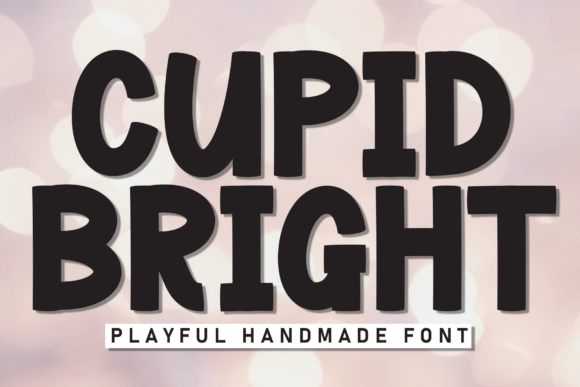
Cupid Bright Font: The Perfect Addition to Your Design Universe
Are you looking for a font that can add a spark of fun and playfulness to your creative projects? Look no further than Cupid Bright Font! This delightful handwritten display font is designed to radiate sweetness and friendliness with every stroke, making it the perfect choice for a variety of design applications.
What is Cupid Bright Font?
Cupid Bright Font is a beautiful, handwritten display font that is sure to capture the hearts of designers and audiences alike. Its endearing style and charming aesthetic make it an excellent choice for crafting wedding invitations, cards, and other design projects that require a touch of warmth and joy.
With its unique blend of playfulness and sophistication, Cupid Bright Font is perfect for designers who want to add a personal touch to their work. Whether you’re creating a wedding invitation, a greeting card, or a social media post, this font is sure to make your design stand out from the crowd.
Key Features of Cupid Bright Font
• Handwritten display font: Cupid Bright Font is a handwritten display font that is designed to add a personal touch to your designs.
• Sweet and friendly aesthetic: This font radiates sweetness and friendliness with every stroke, making it perfect for designs that require a touch of warmth and joy.
• Playful and sophisticated: Cupid Bright Font has a unique blend of playfulness and sophistication, making it perfect for a variety of design applications.
• Perfect for wedding invitations and cards: This font is an excellent choice for crafting wedding invitations and cards that evoke warmth and joy.
Benefits of Using Cupid Bright Font
There are many benefits to using Cupid Bright Font in your designs. Here are just a few:
• Adds a personal touch: This font adds a personal touch to your designs, making them more relatable and engaging.
• Evokes emotions: The sweet and friendly aesthetic of Cupid Bright Font is sure to evoke emotions and create a connection with your audience.
• Versatile: This font is perfect for a variety of design applications, from wedding invitations and cards to social media posts and more.
• Easy to read: Despite its playful aesthetic, Cupid Bright Font is easy to read, making it perfect for designs that require a clear and concise message.
How to Use Cupid Bright Font
Using Cupid Bright Font in your designs is easy! Here are a few tips to get you started:
• Pair with complementary fonts: Pair Cupid Bright Font with complementary fonts to create a unique and visually appealing design.
• Use for headings and titles: This font is perfect for headings and titles, where you want to add a touch of personality and whimsy.
• Add to your design arsenal: Add Cupid Bright Font to your design arsenal and use it to create a variety of designs, from wedding invitations and cards to social media posts and more.
In conclusion, Cupid Bright Font is a delightful handwritten display font that is sure to add a spark of fun and playfulness to your creative projects. With its sweet and friendly aesthetic, this font is perfect for designers who want to add a personal touch to their work. Whether you’re creating a wedding invitation, a greeting card, or a social media post, Cupid Bright Font is sure to make your design stand out from the crowd.
• What is Cupid Bright Font?: Cupid Bright Font is a beautiful, handwritten display font that is designed to radiate sweetness and friendliness with every stroke.
• What is Cupid Bright Font used for?: This font is perfect for a variety of design applications, including wedding invitations, cards, social media posts, and more.
• Is Cupid Bright Font easy to read?: Yes, despite its playful aesthetic, Cupid Bright Font is easy to read, making it perfect for designs that require a clear and concise message.